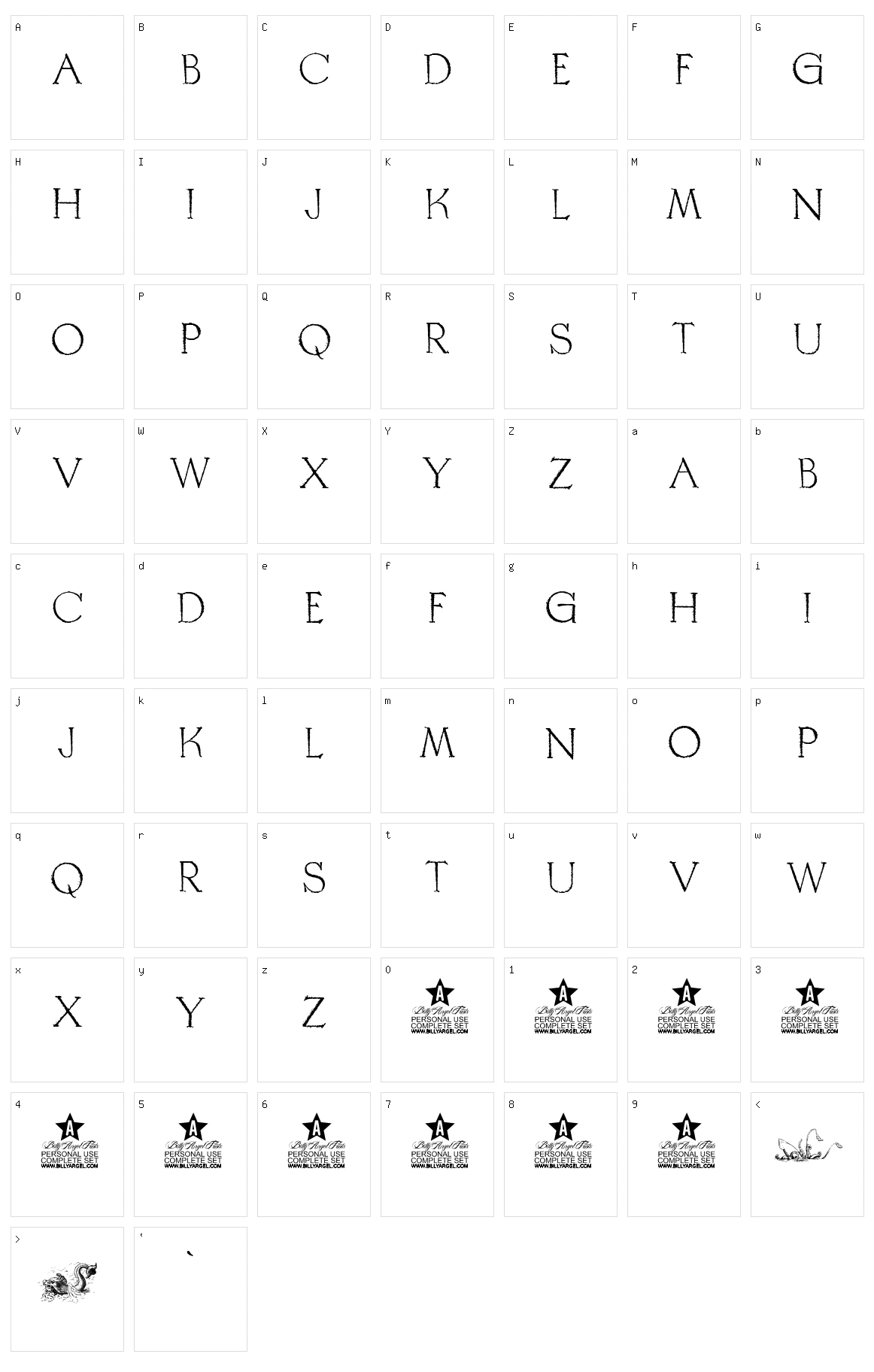
The free font Seven Seas is carefully designed by Billy Argel Fonts ®, showcasing a thoughtful balance of creativity and usability and falls under the Eroded font style. When you download the ZIP file, it contains only 445.78 KB of font files, making it lightweight and quick to download. Please review the license details below to understand permitted usage and distribution rights. If license information is not available, we recommend using this font for personal projects only or contacting the author directly for commercial usage permissions.